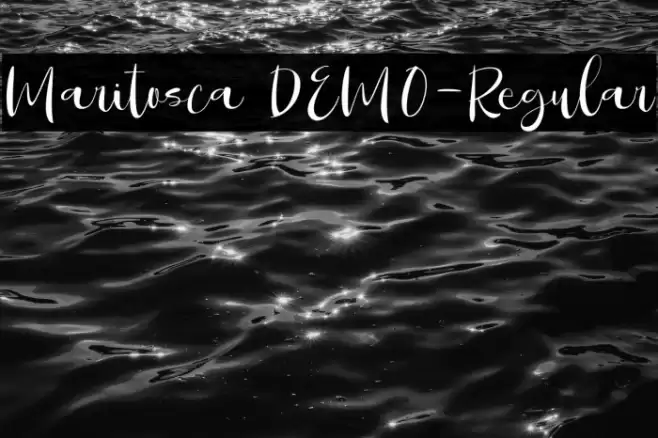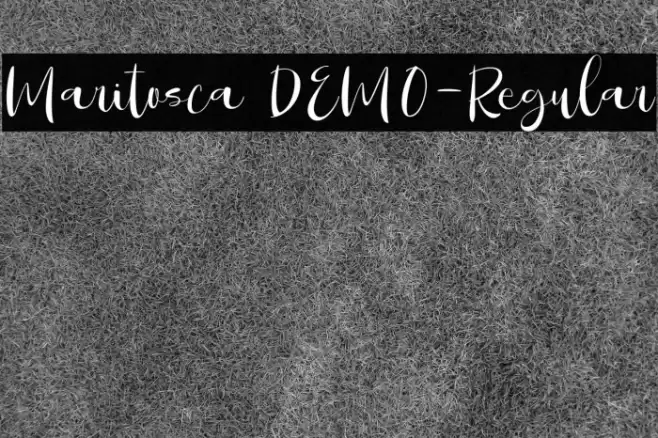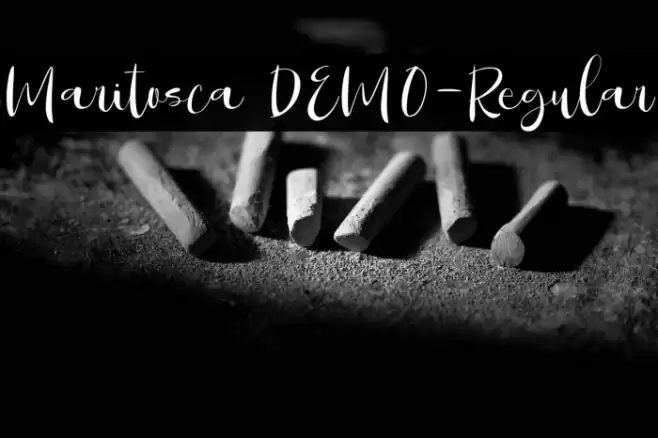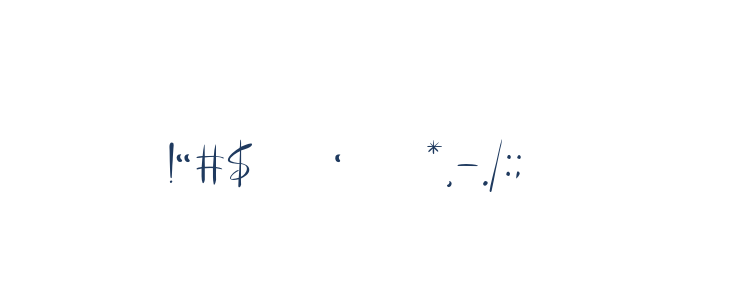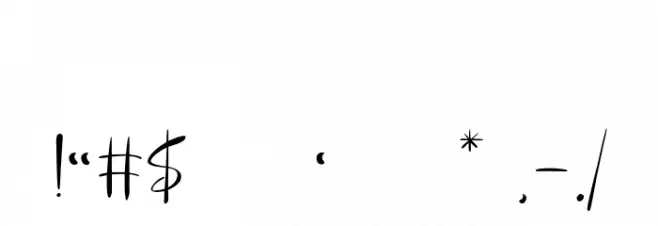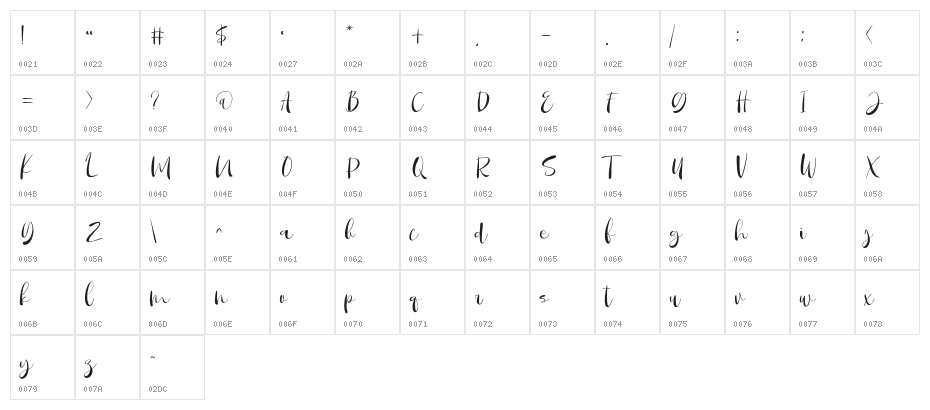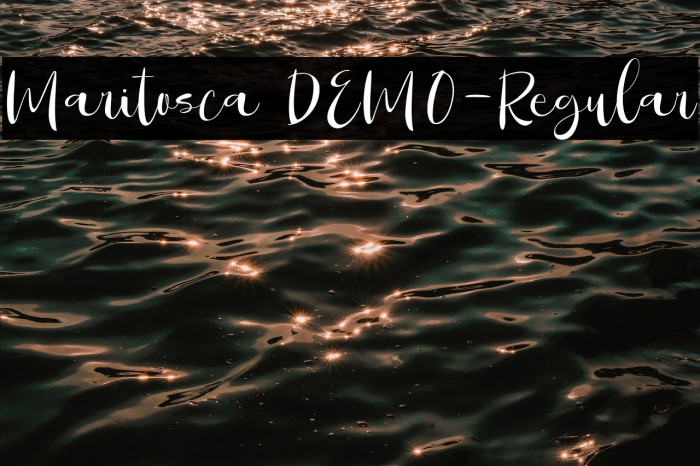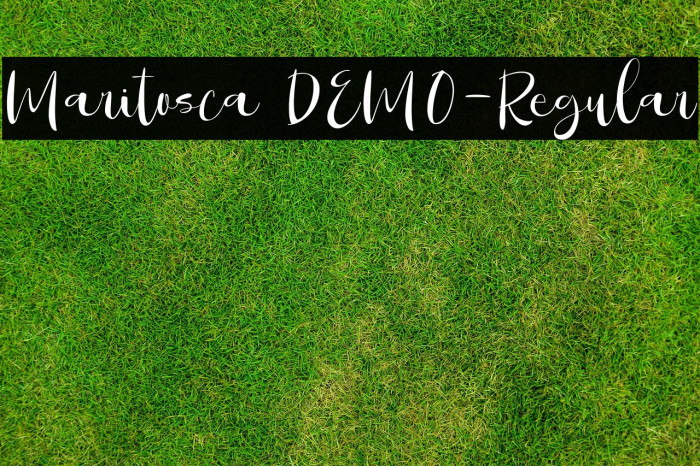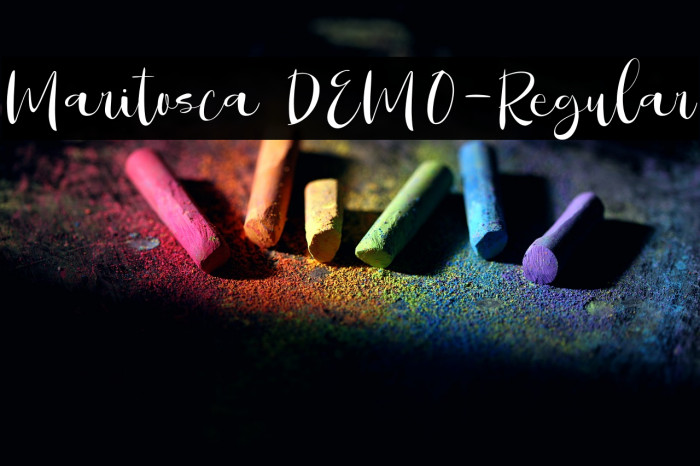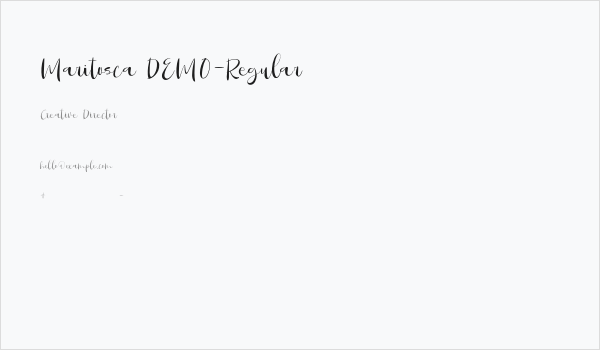
Maritosca DEMO-Regular Font
Maritosca DEMO-Regular Description
This font exhibits a flowing, cursive style with elegant, sweeping strokes that give it a handwritten appearance. The uppercase letters are bold and dramatic, with a slight slant that adds a sense of movement and dynamism. The lowercase letters maintain a consistent style, featuring loops and curves that enhance the font's fluidity. The numbers and special characters are designed to match the overall aesthetic, ensuring a cohesive look. This font is perfect for projects that require a personal touch, such as invitations, greeting cards, or branding materials.
A flowing, cursive font with elegant, sweeping strokes and a handwritten appearance from Regular fonts.
- Proposed Projects: Ideal for invitations, greeting cards, branding materials, and any project needing a personal touch.
- Use Case: Logos, Headlines, Invitations